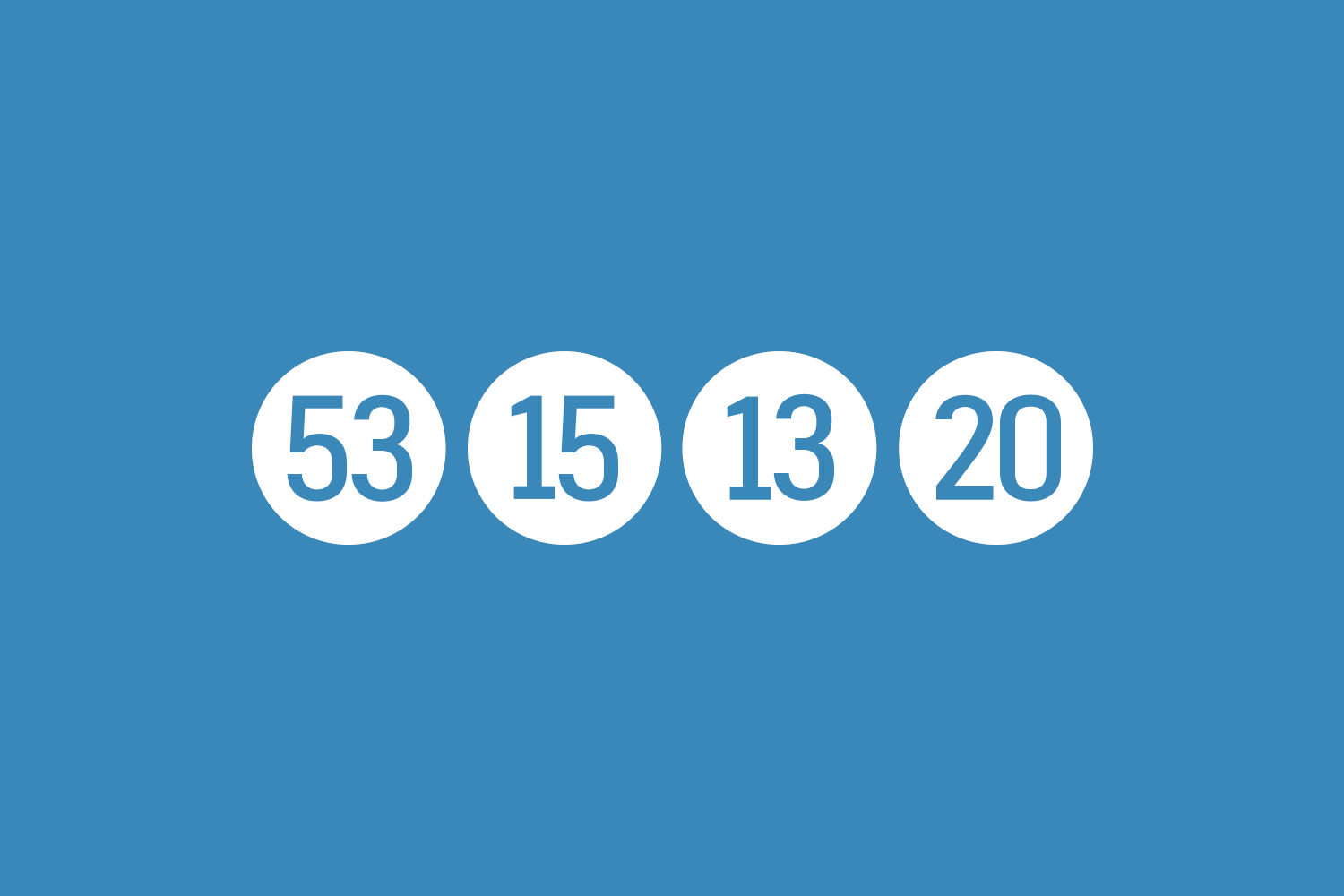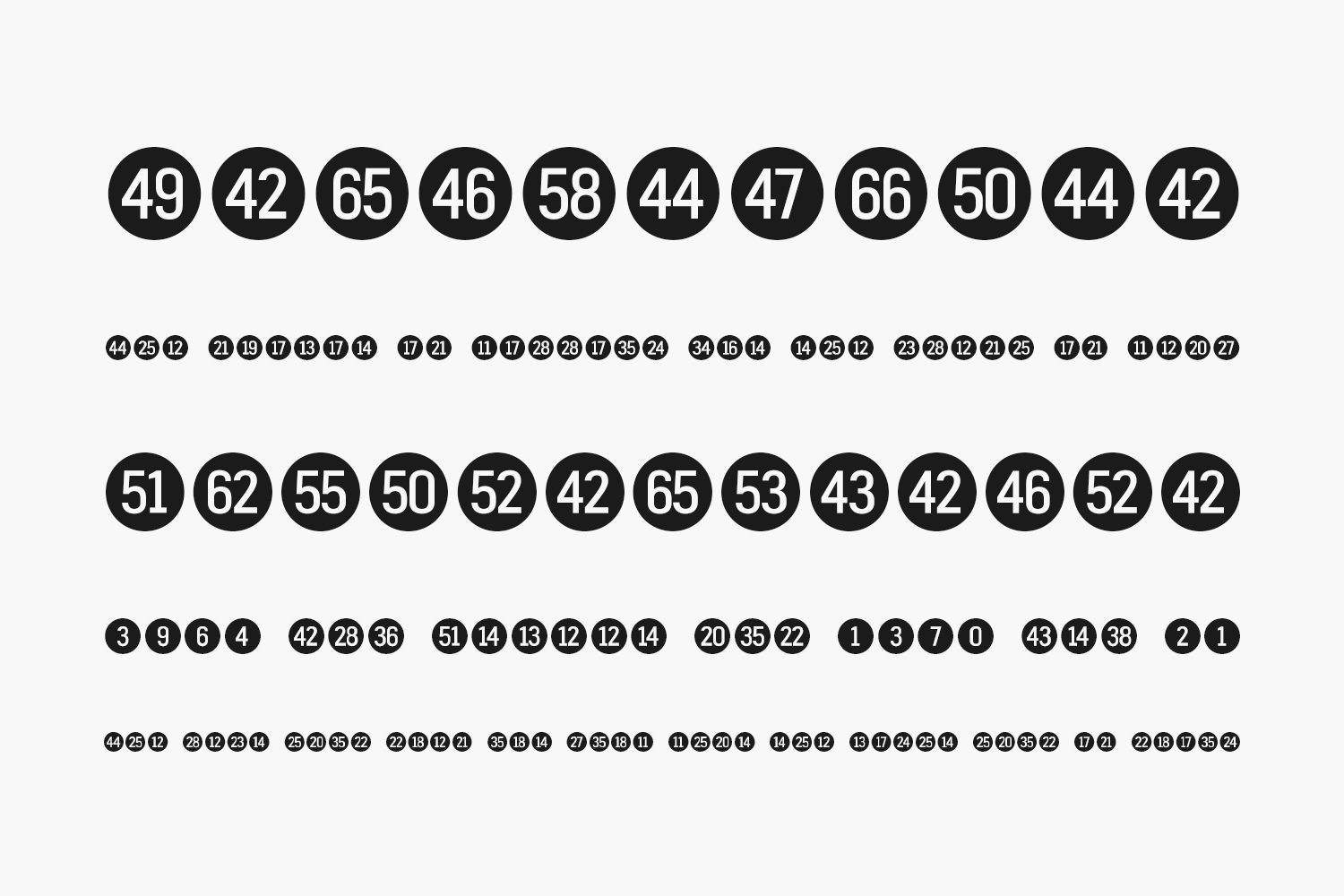
Fyra Free Font is a family of fonts ideal for diagrams and signage. Included in the family are versions with uppercase letters in circles and squares, as well as numbers 0-99 in circles and squares.
The characters themselves were designed to be very neutral, so they should pair well with whatever other typefaces you are using on your project.